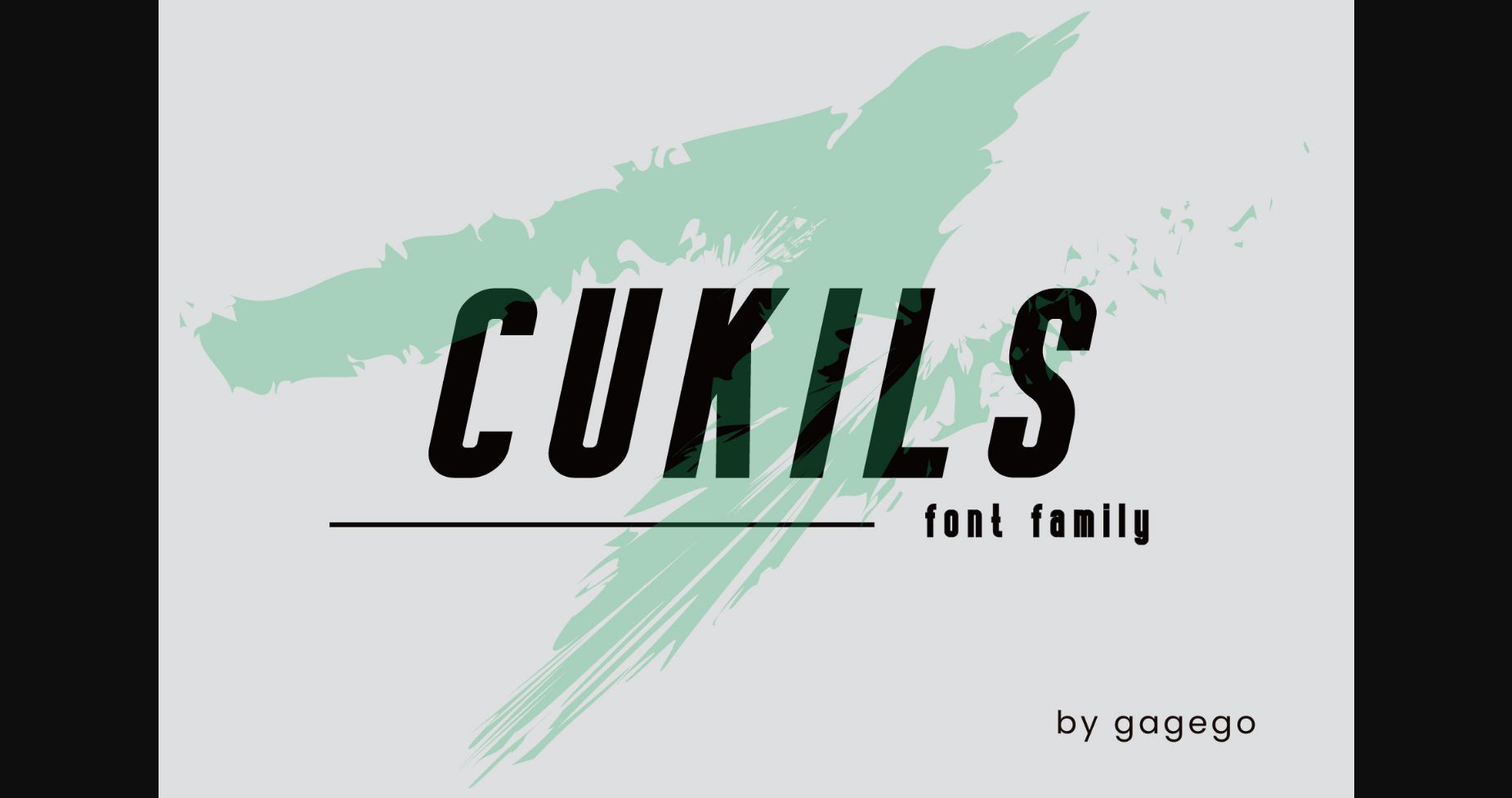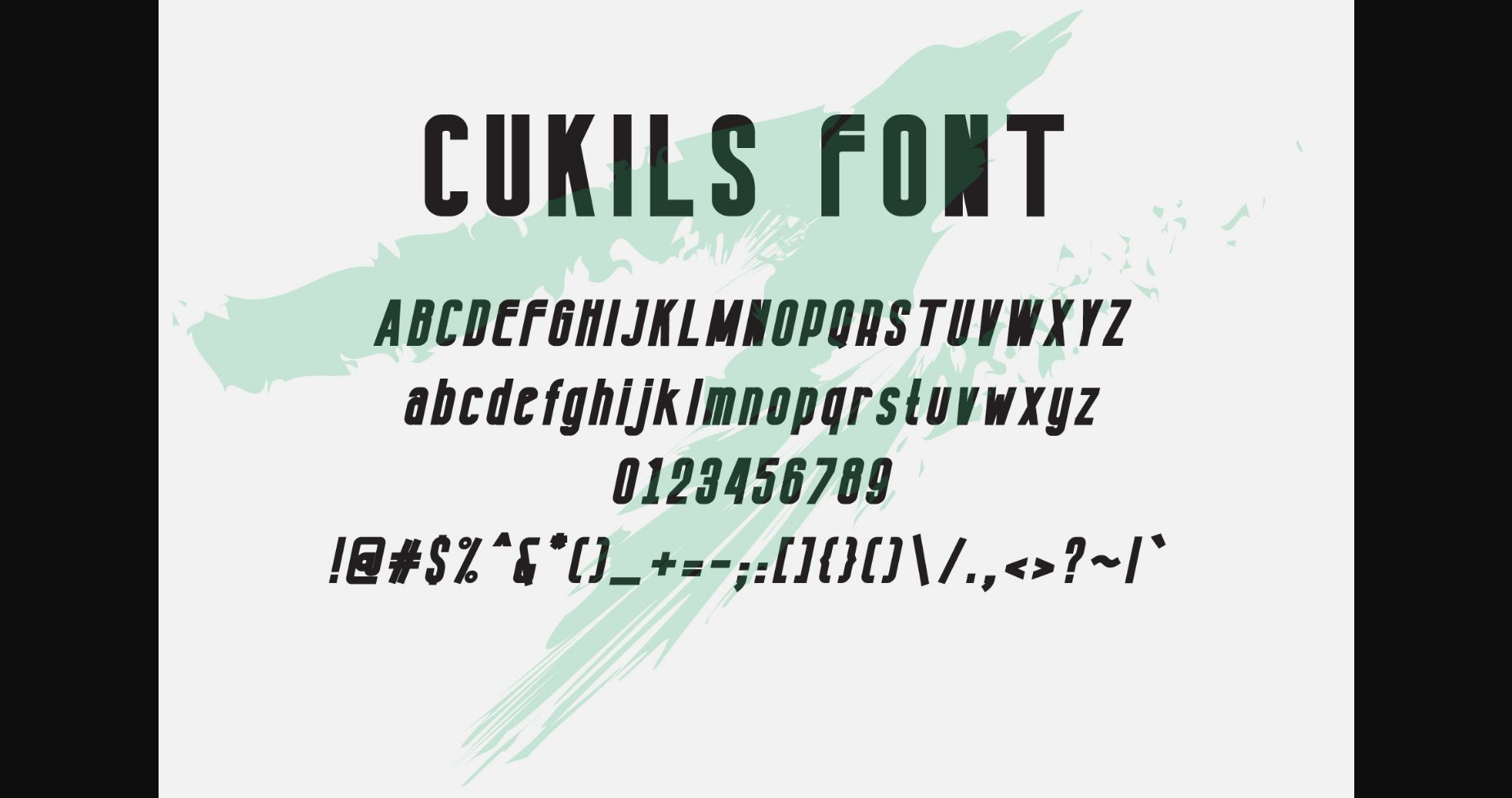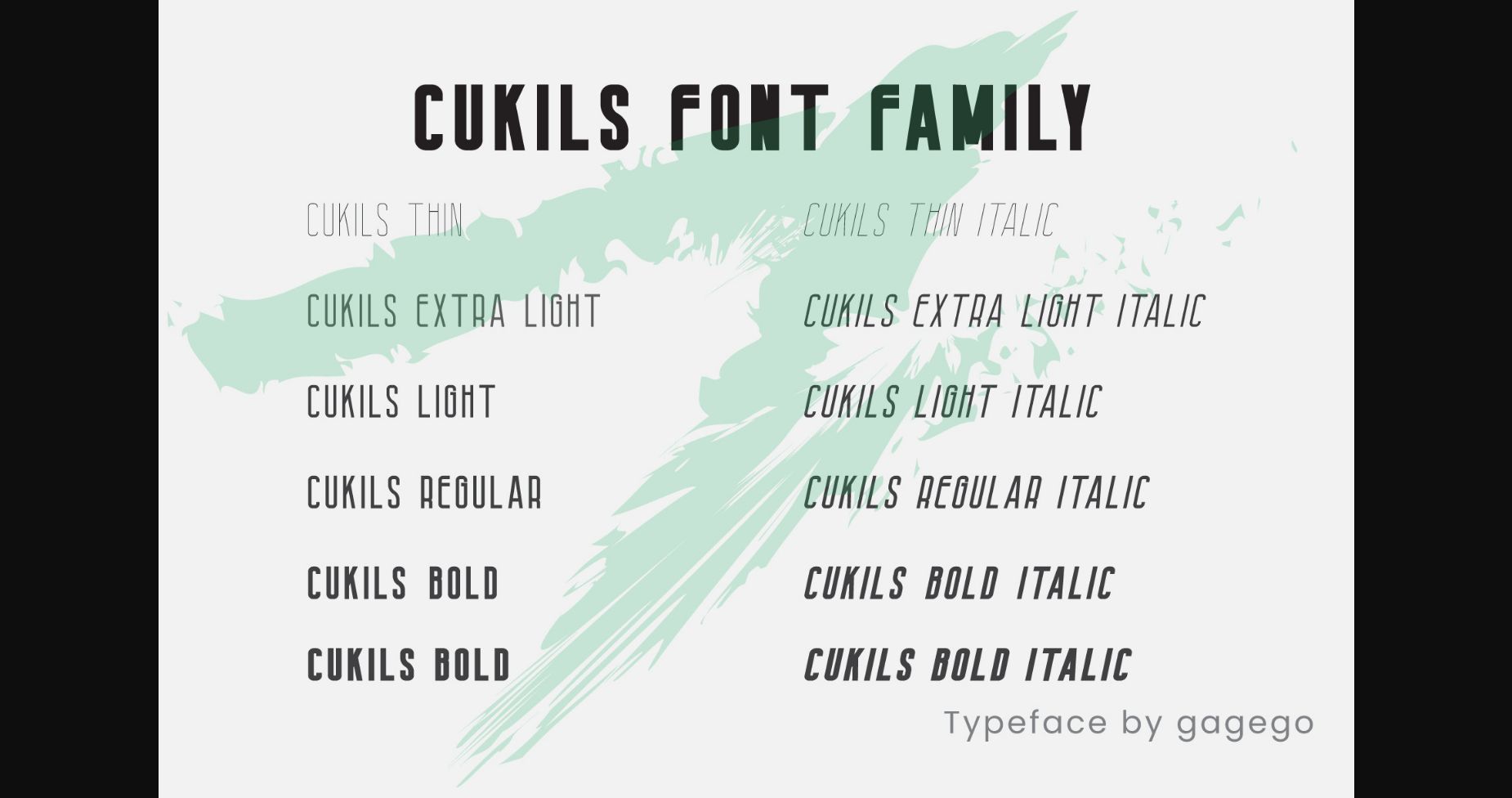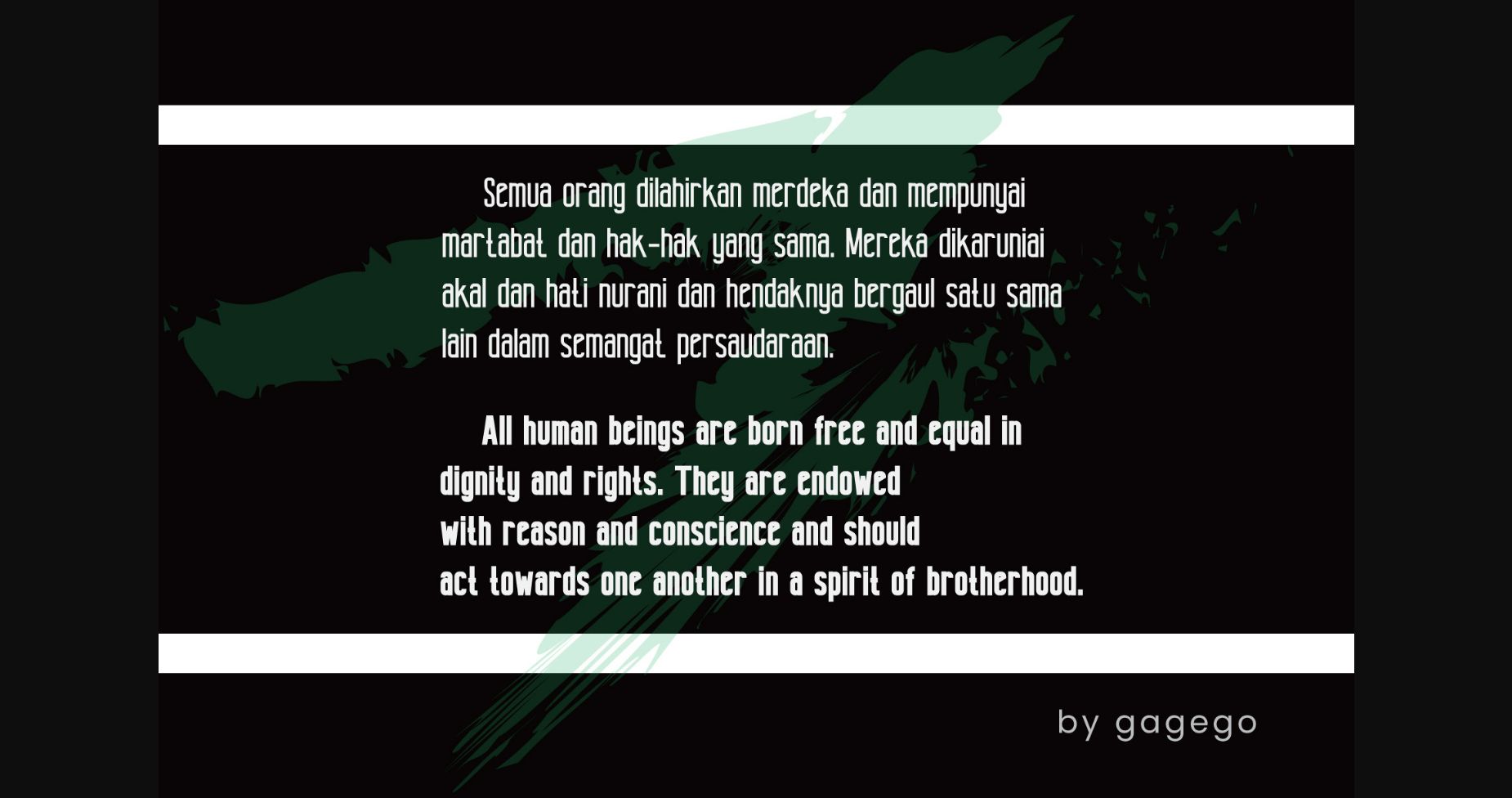
About Cukils Font
Cukils is a modern sans-serif font with a unique, contemporary look featuring sharp edges, bold lines, and smooth curves. A perfect choice for creating eye-catching headlines and stand-out designs.